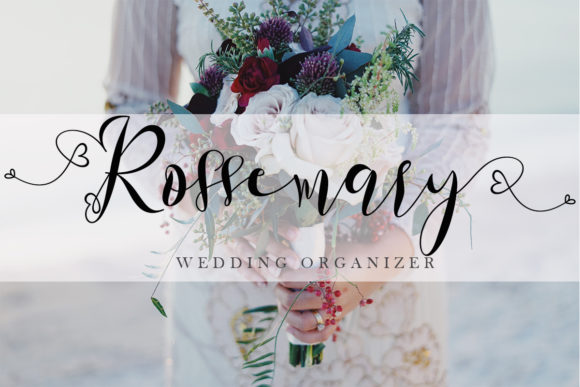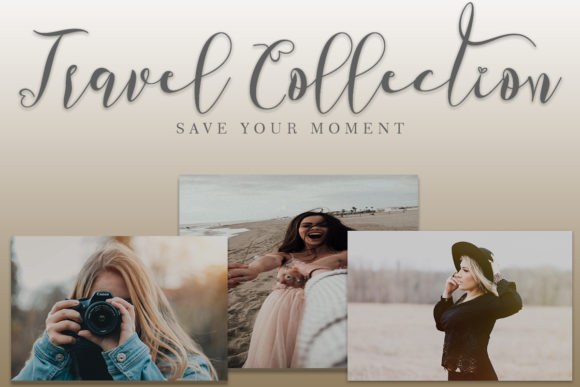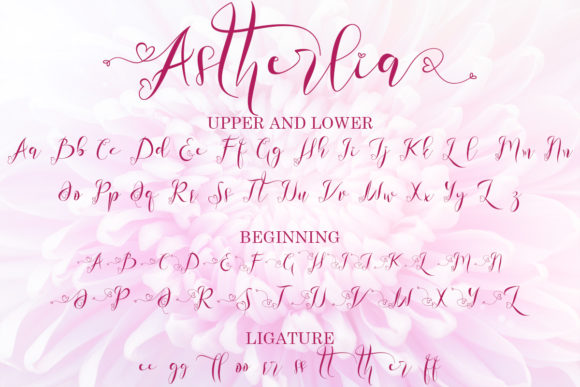
Introduction to Astherlia Font
Astherlia is a lovely, romantic and beautiful handwritten font.
It has beautiful and well balanced characters and as a result, it matches a wide pool of designs Astherlia features a varying baseline, smooth lines, gorgeous glyphs and stunning alternates.